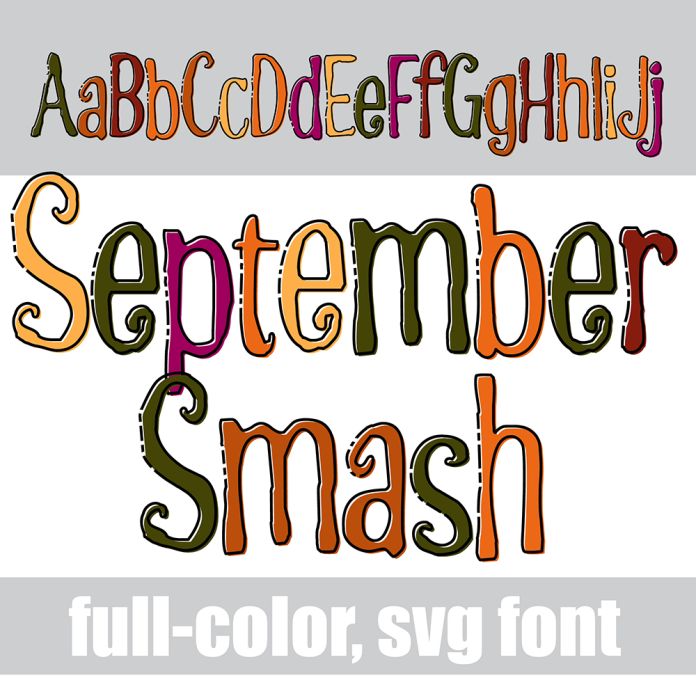
This full-color font features a black, thin, hand-drawn outline and lettering in an autumn color palette. There is an alt case with additional colors you can access through your system's character map. This font works best for titles, displays, posters and more. Please note color fonts will show as black in non compatible programs. This font type is compatible with Silhouette Studio.